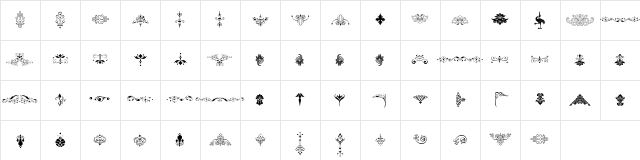
Complete Soft Ornaments Eleven Regular glyph index. Displaying only characters natively supported by Soft Ornaments Eleven Regular font.
Soft Ornaments Eleven is built around its visual character rather than neutral utility - its distinctive forms are designed to make an impression at display sizes.
Font Pairing: Pair with a clean neutral sans-serif for body copy to let Soft Ornaments Eleven's character lead without overwhelming the composition.
Pro Tip: Use Soft Ornaments Eleven exclusively at display sizes - it was designed to be seen, not read at length. Let a neutral companion handle body copy.